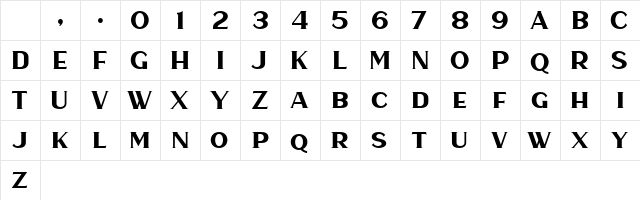
Complete Haarlem Serif DEMO Regular glyph index. Displaying only characters natively supported by Haarlem Serif DEMO Regular font.
Haarlem Serif DEMO carries the refined structure of traditional serif typography, with bracketed terminals and considered proportions that communicate credibility and craft.
Pro Tip: Use Haarlem Serif DEMO for editorial body copy and considered headline work. Pair with a neutral sans for UI elements or captions to create a classic hierarchy.